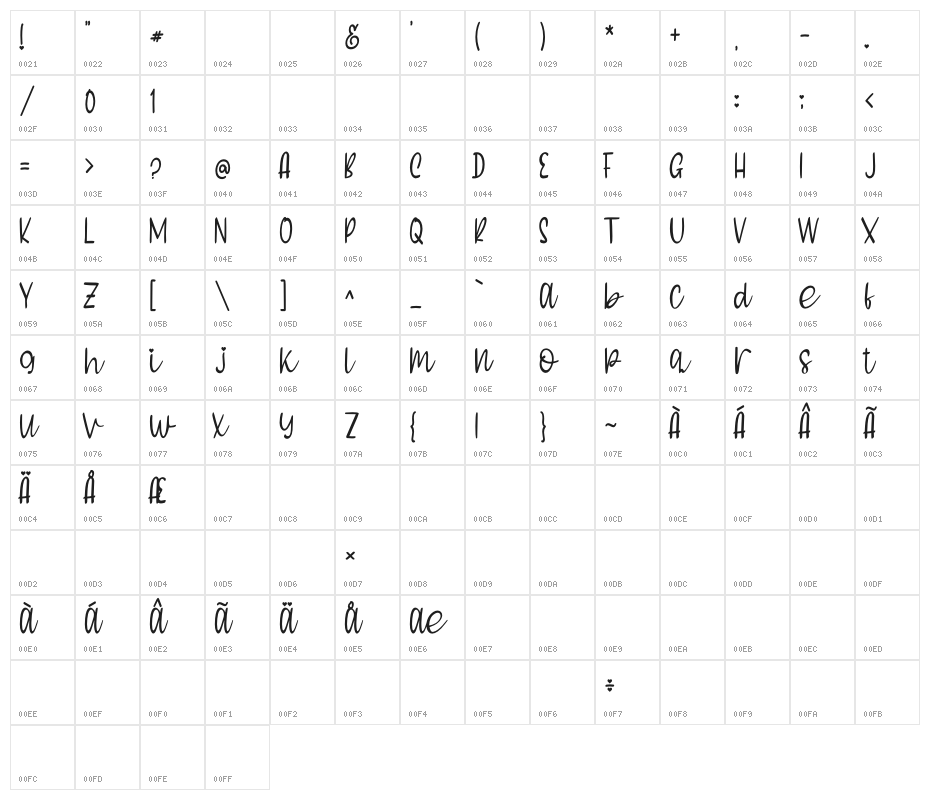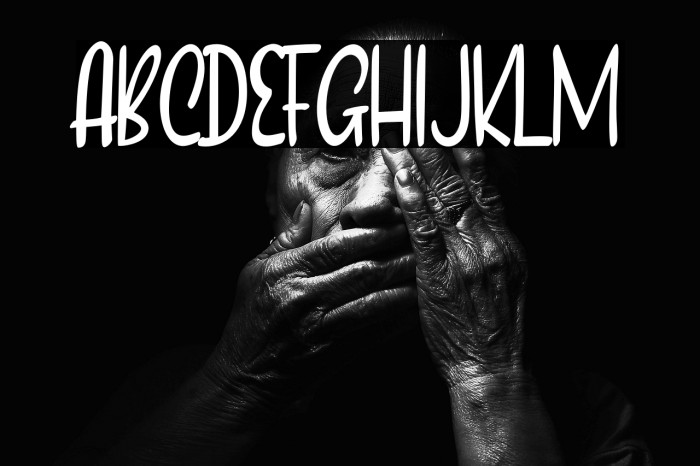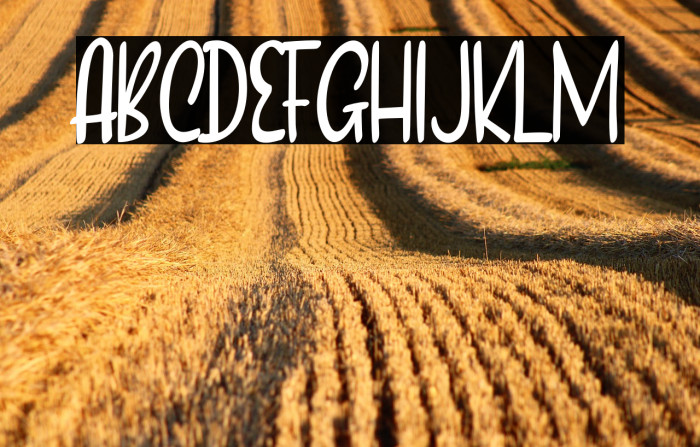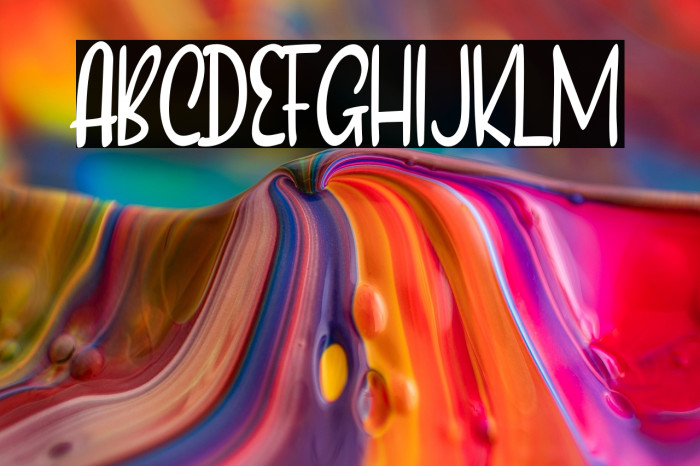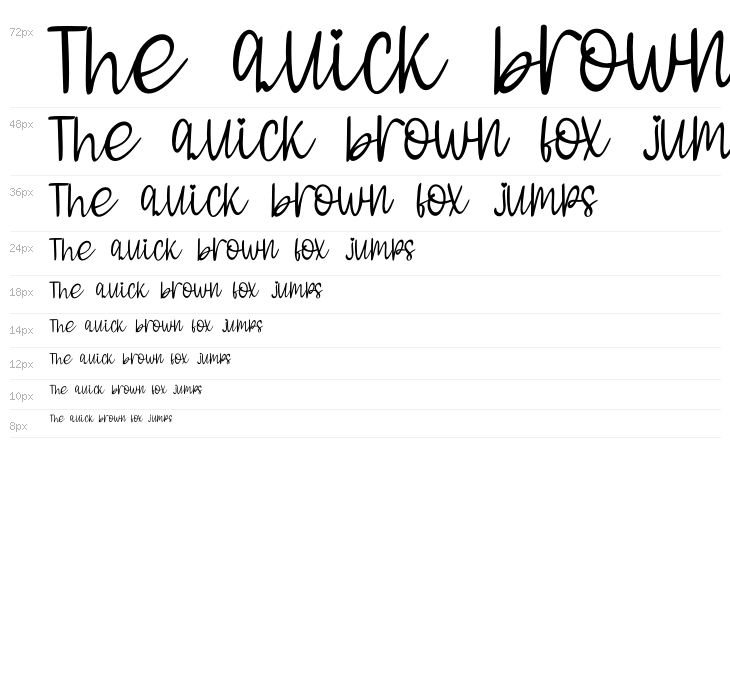
Falling Love Font
Falling Love Description
This font features a playful and whimsical handwritten style, characterized by its smooth, flowing curves and slightly irregular letterforms. The uppercase letters are bold and confident, while the lowercase letters exhibit a charming, cursive-like quality. The font maintains a consistent stroke width, providing a harmonious and balanced appearance. It includes a full set of uppercase and lowercase letters, numerals, and a variety of special characters, making it versatile for different design needs. The overall aesthetic is friendly and approachable, ideal for projects that require a personal touch.
| Use Case | Logos, Headlines, Invitations |
| Proposed Projects | Ideal for greeting cards, wedding invitations, personal branding, and social media graphics. |